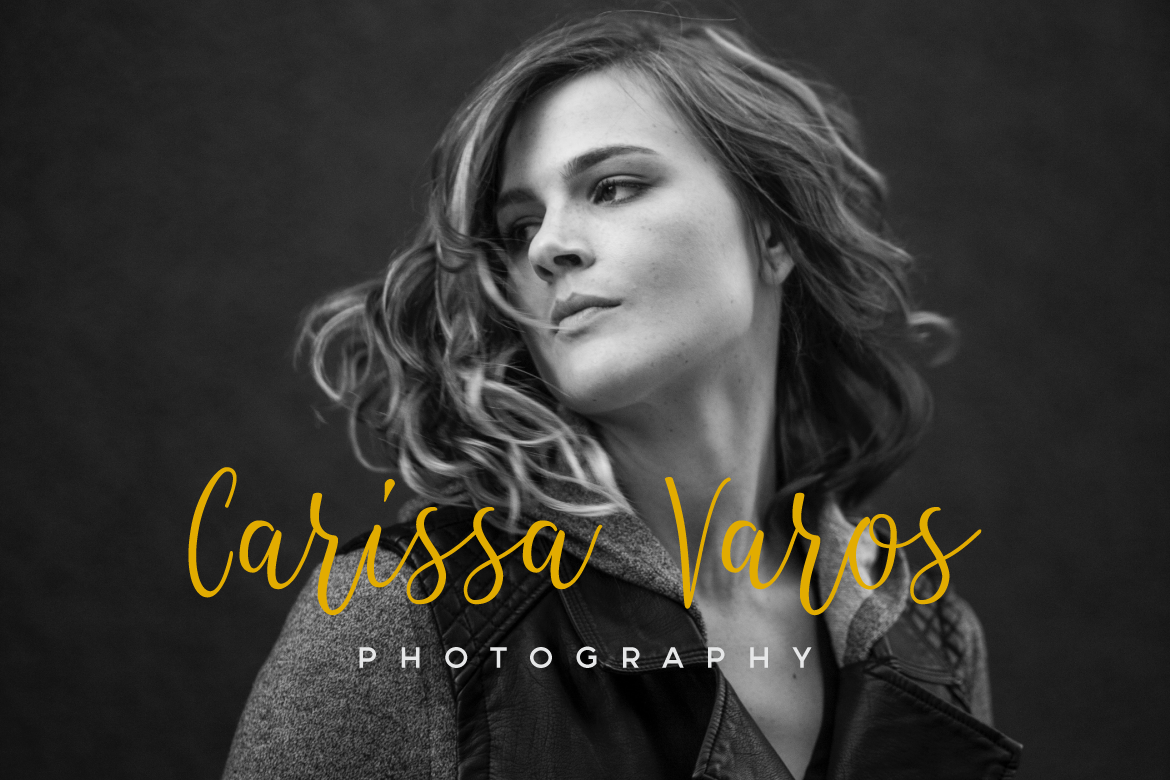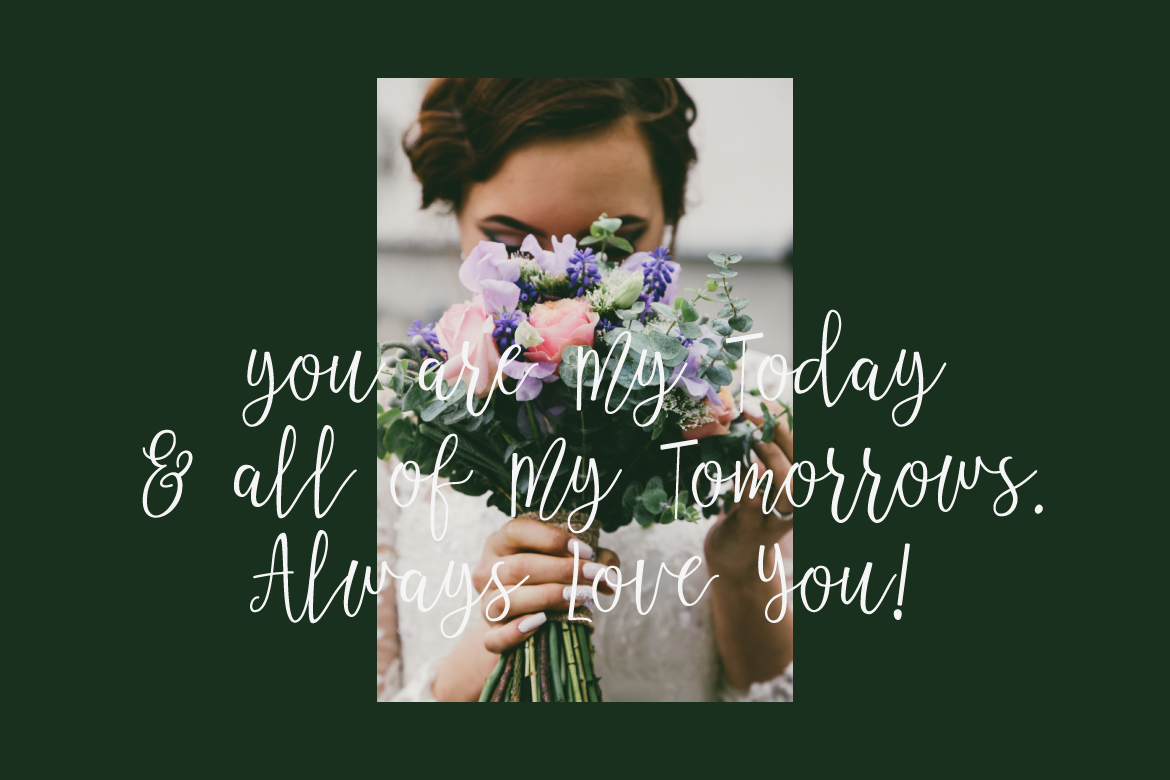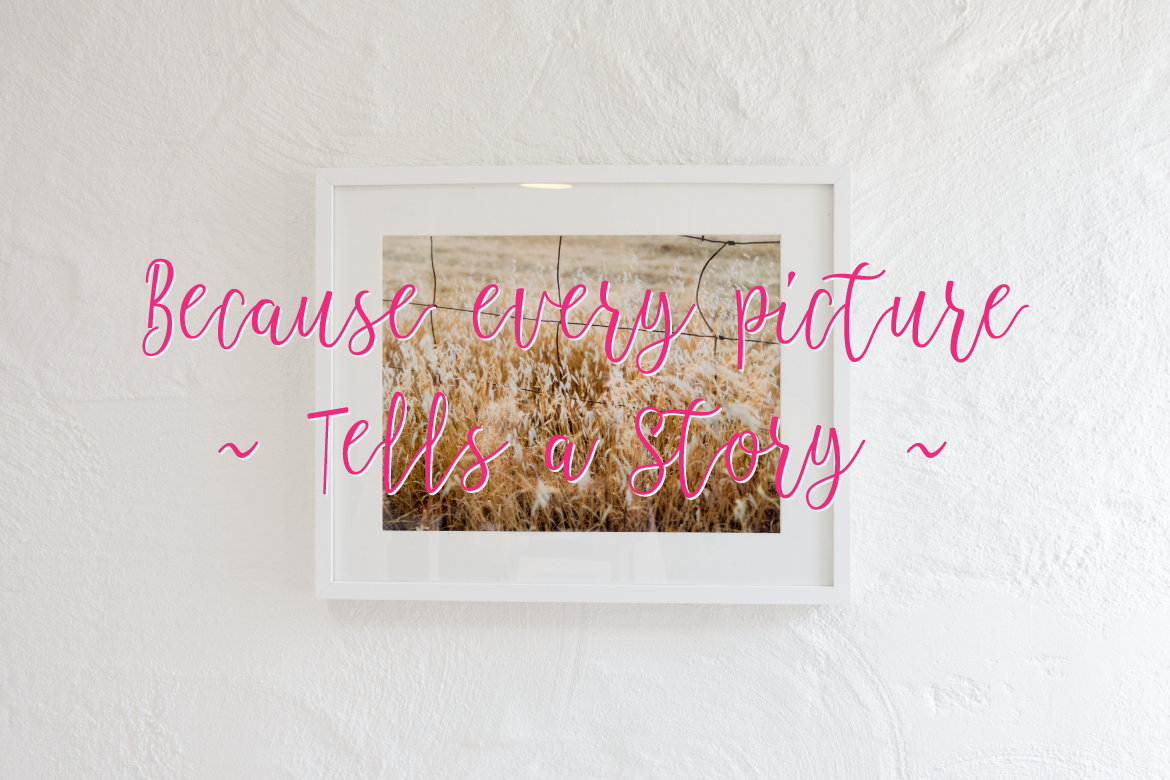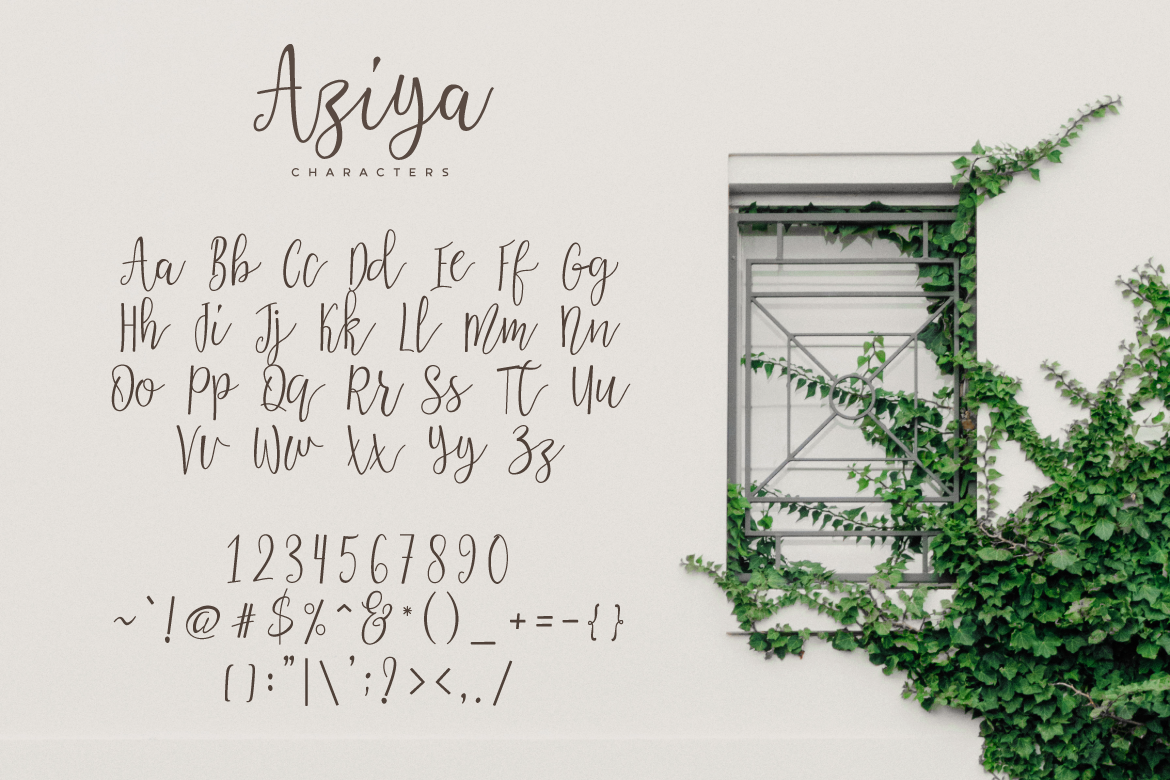
Introducing Aziya Font: The Epitome of Elegance and Hipness
Are you a designer or crafter looking for a font that embodies both sophistication and playfulness? Look no further than Aziya Font, a stunning calligraphy font that is sure to elevate your designs to new heights. With its unique blend of feminine charm and modern flair, Aziya Font is the perfect addition to any project that requires a touch of elegance and whimsy.
The Beauty of Aziya Font
Aziya Font is a beautiful calligraphy font that exudes a sense of refinement and poise. Its intricate lines and delicate curves are crafted with a feminine touch, giving it a distinctly elegant feel that is sure to captivate your audience. Whether you’re designing a wedding invitation, a fashion brochure, or a romantic greeting card, Aziya Font is the perfect choice for adding a touch of sophistication and glamour.
Hip and Elegant: The Perfect Combination
What sets Aziya Font apart from other calligraphy fonts is its unique ability to balance hipness and elegance. Its modern design and trendy vibe make it perfect for fashion-forward designs, while its classic charm and sophistication ensure that it will never go out of style. Whether you’re creating a design for a high-end fashion brand or a trendy boutique, Aziya Font is the perfect choice for adding a touch of cool, sophisticated flair.
Crafting Your Designs with Aziya Font
Aziya Font is incredibly versatile, making it perfect for a wide range of design applications. Its delicate lines and intricate curves make it ideal for use in:
• Fashion brochures and catalogs
• Romantic greeting cards and gift tags
• Logos and branding materials
Why Choose Aziya Font?
So why choose Aziya Font for your next design project? Here are just a few reasons:
• Unique and eye-catching: Aziya Font is a one-of-a-kind calligraphy font that is sure to grab attention and set your design apart from the crowd.
• Feminine charm: Aziya Font is crafted with a distinctly feminine touch, making it perfect for designs that require a touch of elegance and sophistication.
• Versatile: Aziya Font can be used in a wide range of design applications, from fashion and beauty to wedding and event planning.
• Easily readable: Despite its intricate lines and delicate curves, Aziya Font is surprisingly easy to read, making it perfect for use in body text and headlines.
Tips for Using Aziya Font
To get the most out of Aziya Font, here are a few tips to keep in mind:
• Use it sparingly: Aziya Font is a bold and eye-catching font, so use it sparingly to avoid overwhelming your design.
• Pair it with a neutral font: Aziya Font pairs perfectly with neutral fonts like Arial or Helvetica, which provide a clean and simple contrast to its elegant curves.
• Experiment with colors: Aziya Font looks stunning in a range of colors, from soft pastels to rich jewel tones. Experiment with different colors to find the perfect look for your design.
Aziya Font is a truly unique and special calligraphy font that is sure to elevate your designs to new heights. With its perfect blend of elegance and hipness, feminine charm and modern flair, Aziya Font is the perfect addition to any design project that requires a touch of sophistication and whimsy. So why wait? Download Aziya Font today and start creating stunning designs that will leave your audience in awe!